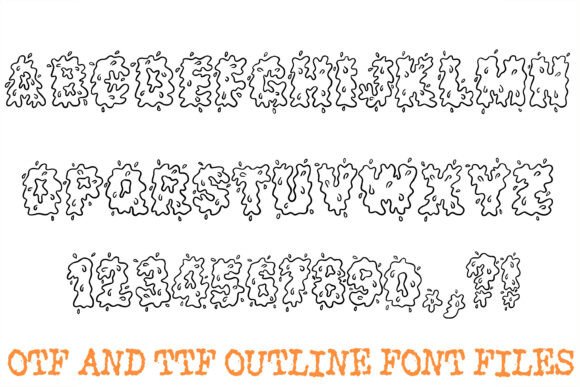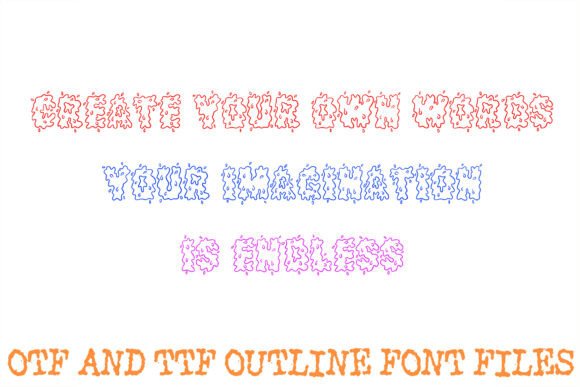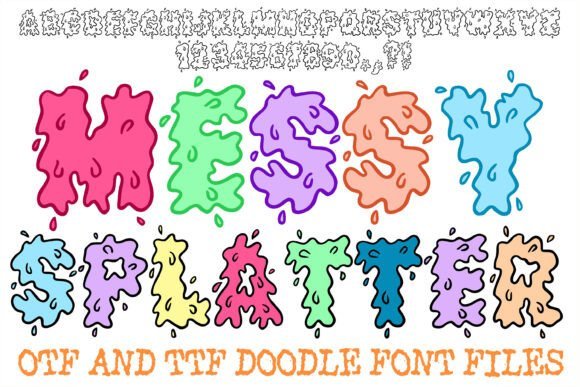
Introduction to Messy Splatter Font
The Messy Splatter Doodle Font is an energetic and organic display typeface that captures the fluid motion of splashing liquid.
It is the perfect choice for slime-themed birthday invitations, β€œoops” inspired stickers, playful children’s apparel, and any creative project that needs a touch of chaotic, hand-crafted charm .
Key Features of Messy Splatter Font
Why Choose Messy Splatter Font?
Messy Splatter Font offers exceptional quality and versatility, making it a valuable addition to your design toolkit. Whether you’re creating for personal projects or commercial use, Messy Splatter Font delivers professional results.